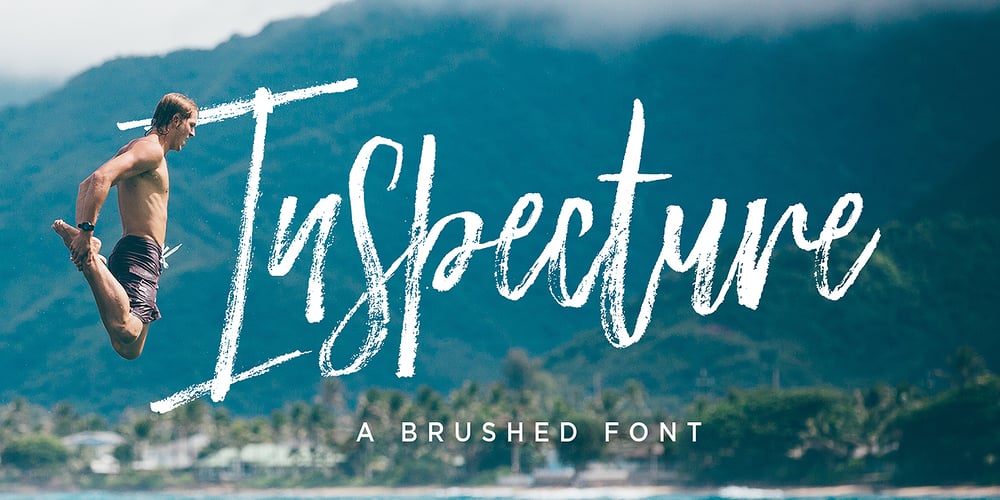
Inspecture Brush Font
Inspecture Brush Font Font Family was designed by Mauli Zari and published by Dhan Studio. Inspecture Brush Font contains 2 styles and family package options. Inspecture is a brush textured font with Perfect, also equipped with additional swashes, this font will make perfection for your design and will make your design more bold and elegant.Perfect for branding projects, logos, product packaging, posters, news, blogs, and the likeIncluded Fonts :Inspecture ScriptInspecture Extra